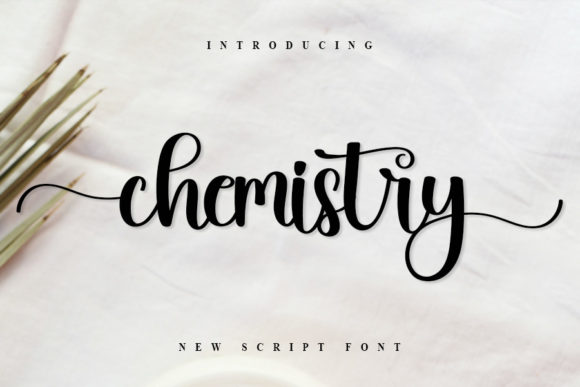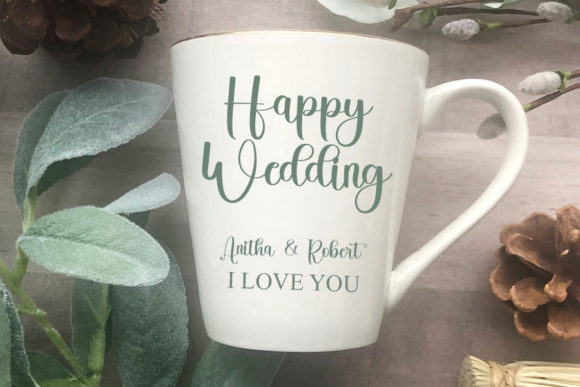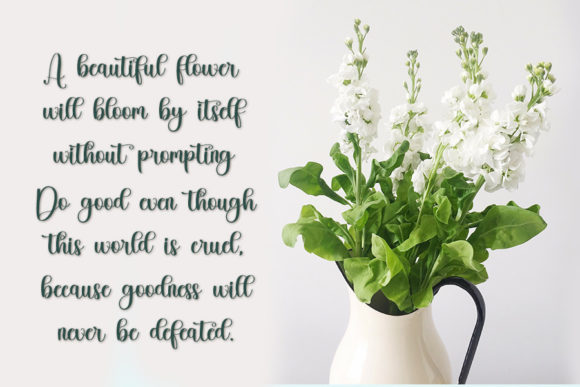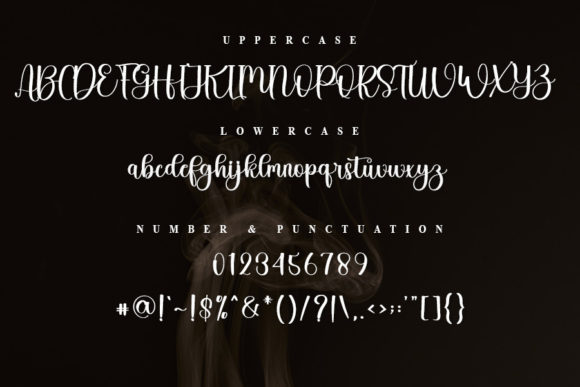
About Chemistry Font
Chemistry is a gorgeous and bold handwritten font, crafted to give your headlines and logotype projects a stylish touch. This font reads as strong, confident, and dynamic and can add tons of nostalgic character to your designs. Chemistry is PUA encoded which means you can access all of the amazing glyphs and ligatures with ease!